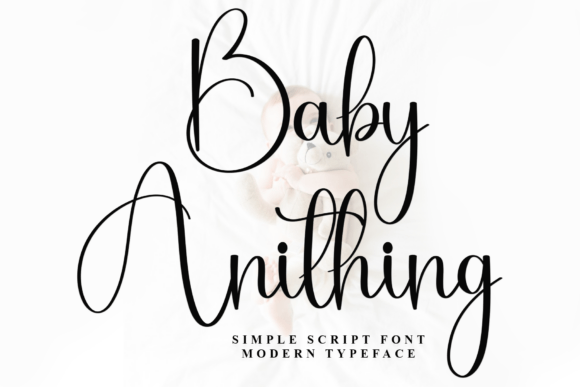
Discover the Charm of Baby Anithing Font
Have you ever stumbled upon a design element that instantly sparks your creativity? Maybe it was a beautiful illustration, a captivating color palette, or a font that speaks to your soul. For many designers, it’s that special moment when everything falls into place, and their project takes off in the most magical way. I still remember the thrill of discovering the Baby Anithing Font, and I’m excited to share its charm with you.
This exquisite handwritten font is a masterful blend of classic calligraphy and modern flair. It’s perfect for adding a touch of elegance and whimsy to your designs, from invitations and quotes to branding and packaging. The Baby Anithing Font is a game-changer for designers looking to elevate their projects and make a lasting impression.
Baby Anithing Font Key Features
- Unique Characteristics: The font features a playful, handwritten style with irregularities and imperfections, giving it a personal and emotive feel
- Style Variations: Includes multiple styles, including Regular, Bold, Italic, and Bold Italic, allowing designers to experiment with different moods and emotions
Baby Anithing Font Review
When I first saw the Baby Anithing font, I was immediately drawn in by its whimsical charm. ✨ The way the rounded edges and playful flourishes dance across the letters is simply delightful. It’s perfect for any project that needs a touch of innocence and wonder.
One of the standout features of this font is its versatility. ✨ It’s available in a range of weights, from light to bold, making it easy to use in everything from children’s book titles to product labels. The font also includes a range of glyphs and symbols, which is a nice touch.
While Baby Anithing is a lovely font, it’s not without its limitations. ⚠️ For one, the font may be too cutesy for some projects. If you’re looking for a font that exudes sophistication or elegance, this may not be the best choice. Additionally, the font can be a bit difficult to read in certain contexts, such as body text.
Another limitation is the font’s relatively small character set. ⚠️ While it includes many of the standard glyphs, it’s missing some of the more unusual characters, such as Cyrillic or Greek letters.
In conclusion, Baby Anithing is a lovely font that’s perfect for projects that need a touch of whimsy. While it may not be suitable for every project, it’s a great choice for designers who want to add a playful touch to their work.
- Pros: Whimsical charm, versatile, range of weights and glyphs.
- Cons: May be too cutesy for some projects, difficult to read in certain contexts, limited character set.
Tips for Getting the Most Out of Baby Anithing Font
For the best results, use Baby Anithing Font in conjunction with playful colors and illustrations. This font is perfect for creating eye-catching headlines and titles. Experiment with different font sizes and styles to add visual interest.
Baby Anithing Font is ideal for creating fun and playful designs, such as: children’s party invitations, nursery decor, and educational materials. This font can also be used for social media graphics and advertising campaigns targeting a young audience.